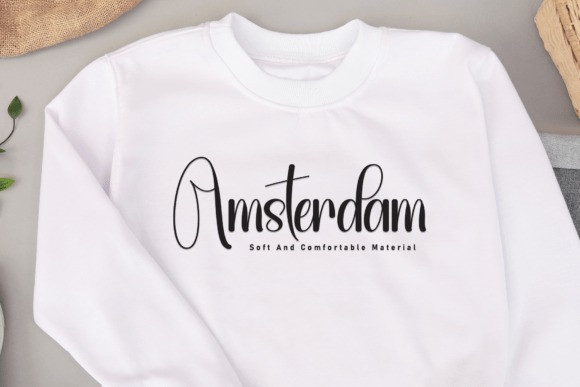
Southine Script Font
Southine Script Font a charming and approachable handwritten display font crafted with affection. Enriched with a delightful charm, this font shines bright in applications where a dash of playfulness is required. Perfect for penning down wedding invitations, personalising cards, or enhancing any design with a joyful element; this enchanting font adds a zesty flair to your creative masterpieces.